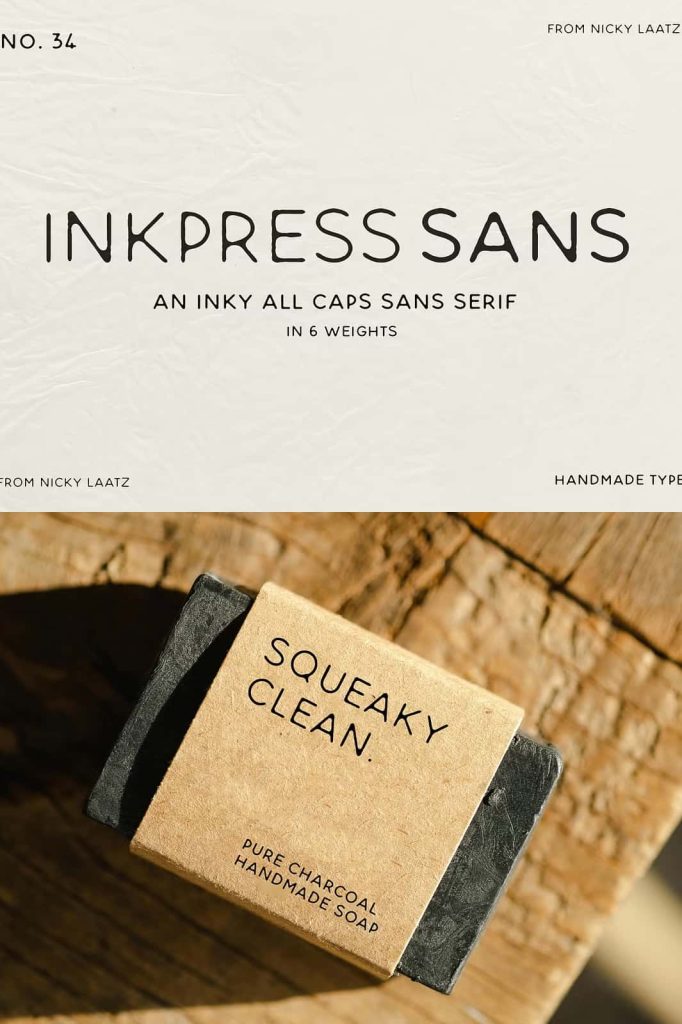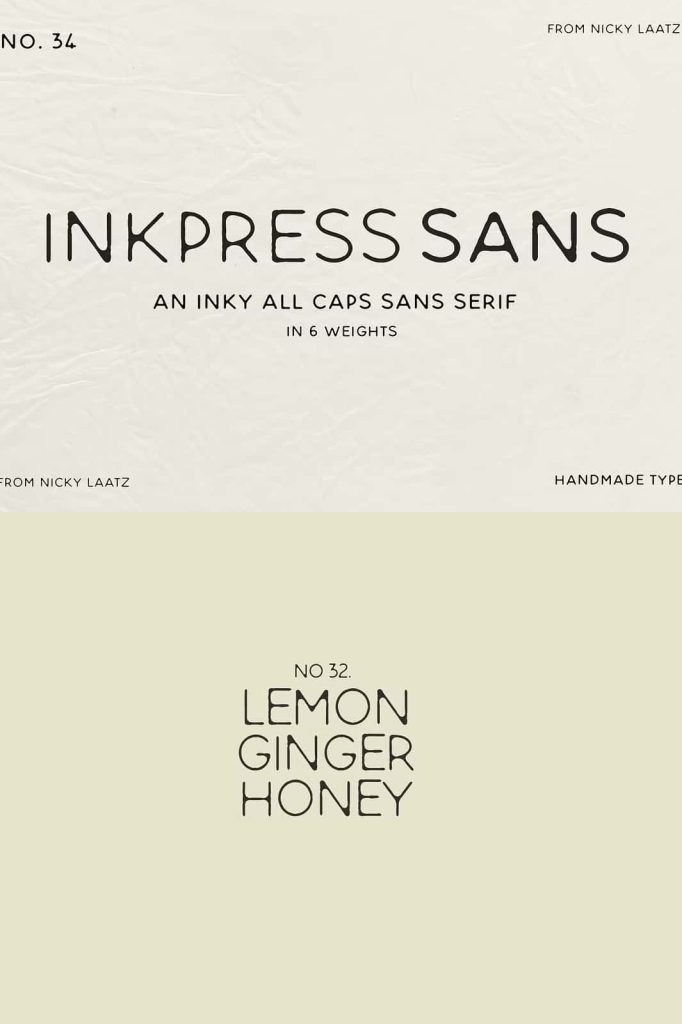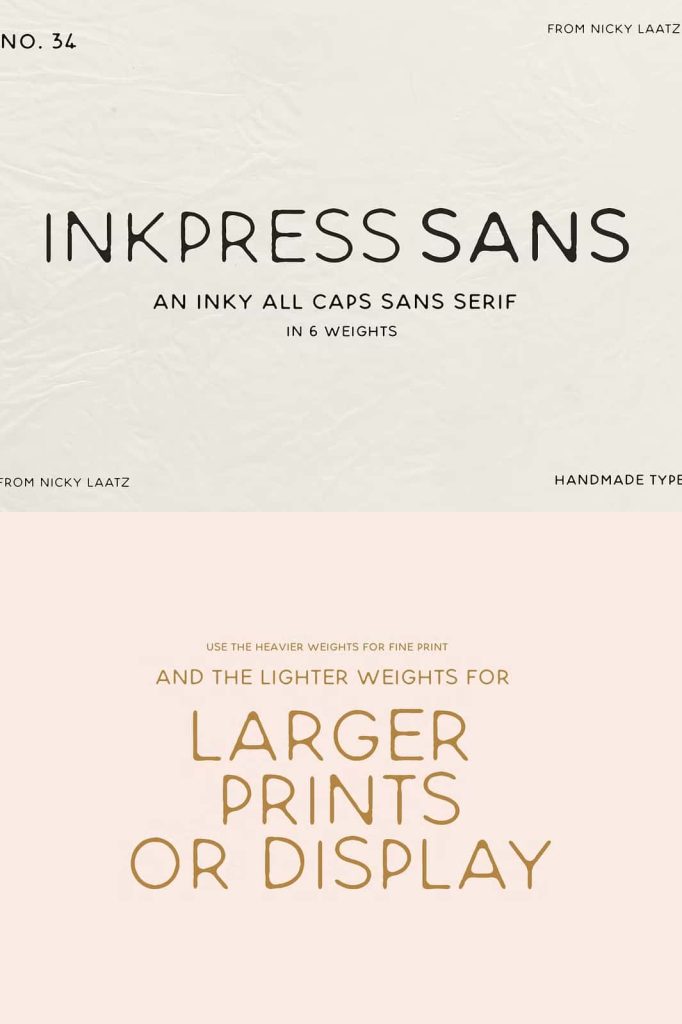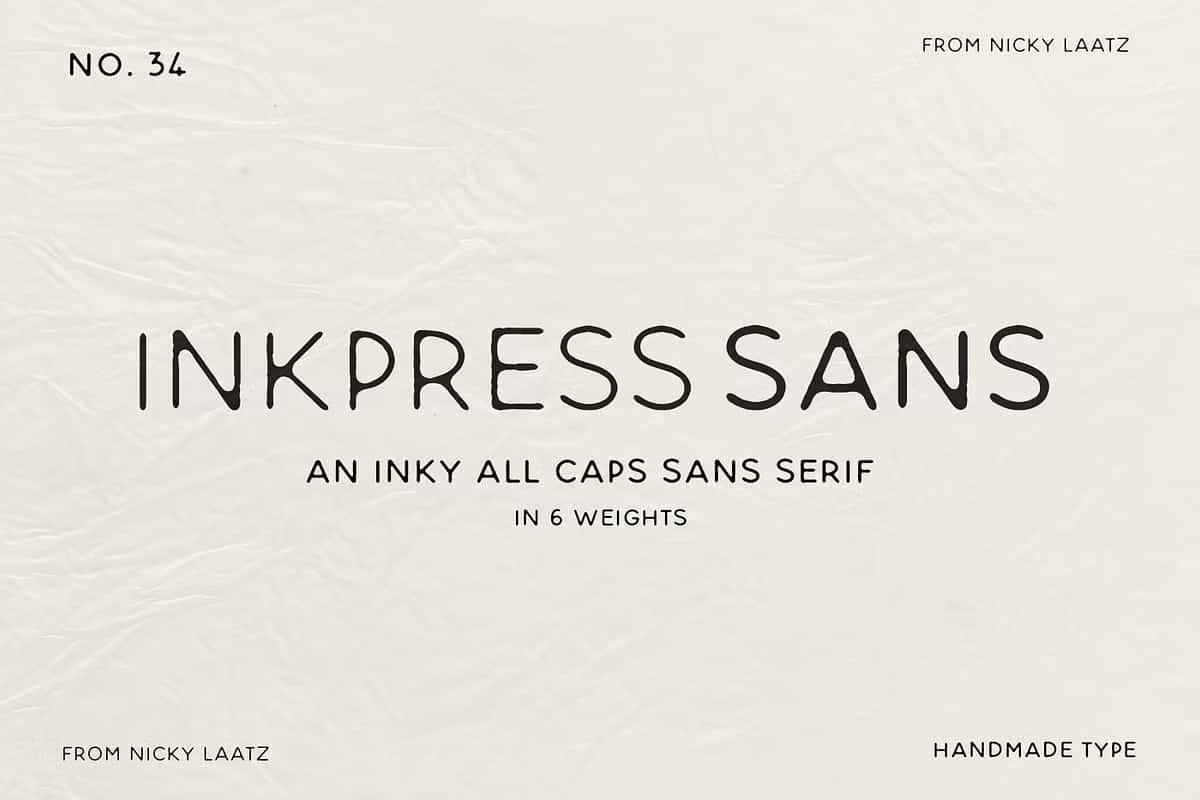
Inkpress Sans – A Bold All-Caps Typeface with Inky Character
Inkpress Sans is a distinctive all-caps typeface that captures the raw energy and texture of freshly stamped ink. Designed with slightly irregular and fluid outlines, this font delivers an authentic handcrafted appearance while maintaining a clean, modern aesthetic. The inky texture adds depth and personality, making every design look expressive and dynamic. Perfect for bold branding, editorial layouts, and creative campaigns, Inkpress Sans blends strength with artistic imperfection to create a truly eye-catching style.
Inspired by the Beauty of Imperfection
The Inkpress Sans font was designed to celebrate the tactile qualities of traditional printmaking. Its subtle irregularities and soft edges emulate the look of ink pressed onto paper, producing a texture that feels both organic and intentional. Rather than striving for mechanical precision, Inkpress Sans embraces imperfection as part of its character. This design philosophy makes it ideal for projects that seek authenticity, individuality, and creative expression. The result is a typeface that feels handcrafted yet versatile enough for modern use.
A Typeface That Makes a Bold Impression
Inkpress Sans is built for impact. As an all-caps sans serif, it commands attention and conveys confidence. The bold weight, slightly uneven edges, and fluid contours give each letter a sense of motion and vitality. It’s perfect for posters, headlines, logos, packaging, signage, and editorial design—anywhere you want your typography to make a statement. Despite its rugged texture, Inkpress Sans maintains excellent legibility, ensuring that every message stands out clearly and effectively.
Combining Texture and Modern Design
While its name evokes the charm of ink and paper, Inkpress Sans fits seamlessly into contemporary design workflows. Its carefully crafted structure and geometric consistency provide visual stability, balancing artistic flair with modern usability. This makes it suitable for both print and digital applications. The font’s textured appearance adds depth without overwhelming the composition, making it a great choice for minimalist designs that need a touch of character or vintage-inspired branding that requires a modern edge.
Versatility That Inspires Creativity
Inkpress Sans adapts beautifully to a variety of design styles. Use it to craft brand identities, creative campaigns, magazine titles, product packaging, or artistic posters. Its bold form ensures immediate visual presence, while its organic details lend warmth and humanity to your work. Whether you’re designing for a cutting-edge brand or an artisanal product, Inkpress Sans brings a handcrafted authenticity that resonates with modern audiences who value creativity and individuality.
Why Designers Love Inkpress Sans
- Authentic texture: Emulates freshly stamped ink for a handcrafted aesthetic.
- All-caps design: Creates strong, confident, and visually balanced compositions.
- Modern versatility: Works equally well in vintage and contemporary projects.
- Impactful and readable: Bold shapes ensure clarity while maintaining artistic flair.
Elevate Your Design with Authentic Expression
Typography has the power to communicate personality, and Inkpress Sans does it with unmistakable character. Its mix of handcrafted imperfection and modern balance makes it an ideal font for designers who want their work to stand out. The subtle ink-inspired textures bring warmth and emotion, transforming simple text into visual art. It’s perfect for projects that aim to feel genuine, creative, and alive.
Bring your words to life with Inkpress Sans — a typeface that combines strength, artistry, and texture in every letter. Whether you’re building a bold brand, crafting expressive print materials, or designing digital experiences that connect emotionally, Inkpress Sans adds the depth and authenticity that modern design demands. Make your message unforgettable with the bold presence and handcrafted spirit of Inkpress Sans.